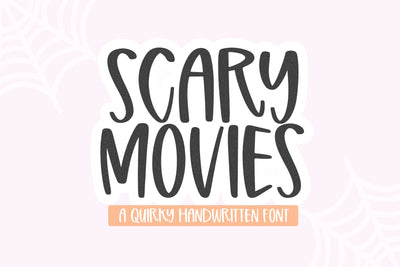
Scary Movies - Fun Handwritten Font
Scary Movies is a fun handwritten font perfect for your everyday & Halloween designs!
This font is perfect for shirts, svg files, stickers, signs, Halloween designs, logos, procreate, crafts and more!